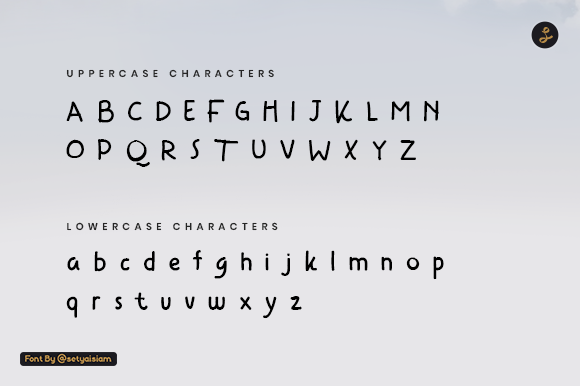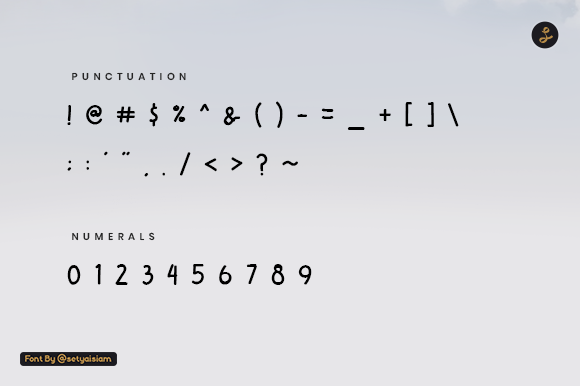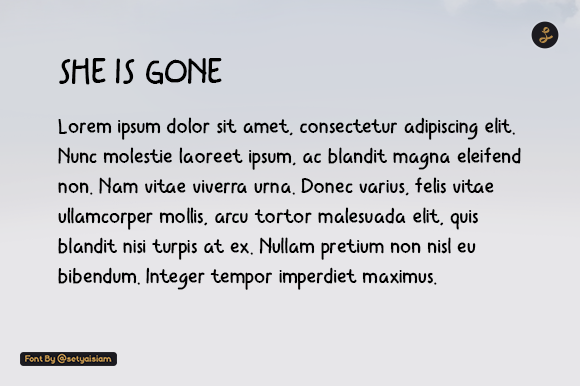
Introduction to She is Gone Font
She is Gone is a timeless display font.
It features a friendly feel that will look outstanding in any context, whether itโs being used on busy backgrounds or as a standalone headline .
She is Gone Font offers exceptional quality and versatility, making it a valuable addition to your design toolkit. Whether you’re creating for personal projects or commercial use, She is Gone Font delivers professional results.